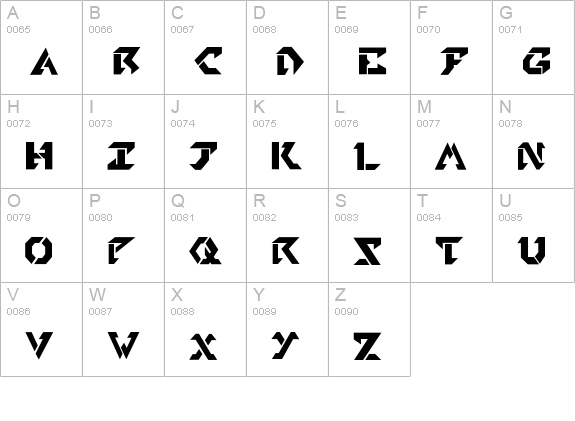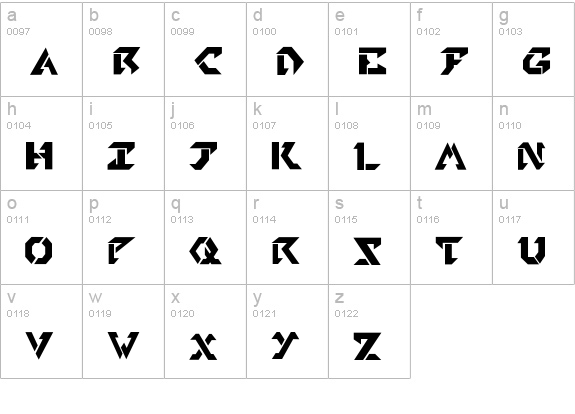
TekHead PD Font Details
Introducing TekHead PD, a sleek and modern font that brings a touch of sophistication to any design project. With its clean lines and bold letterforms, this font is perfect for creating eye-catching headlines, logos, and signage. TekHead PD is not just stylish, it's also versatile. Whether you're working on a corporate presentation, a website, or a print advertisement, this font has the flexibility to adapt to any design concept. Its balanced proportions and carefully crafted details ensure legibility at any size, making it a reliable choice for both digital and print media. But what sets TekHead PD apart from other fonts on the market is that it is completely free. That's right, this high-quality font is freely available to download at FontsMarket.com. Now, you can elevate your design projects without breaking the bank. Whether you're a professional designer or a hobbyist, TekHead PD offers you the opportunity to create stunning visuals without the cost. But don't let its free status fool you. TekHead PD is a font that rivals even the most expensive options. Its meticulous design and attention to detail make it a true standout. From its sleek curves to its precise angles, every aspect of this font has been carefully considered to ensure a superior typographic experience. So why wait? Download TekHead PD today and unleash your creativity. With its versatility, elegance, and most importantly, its free availability, this font is a must-have for any design arsenal. Start creating stunning designs that will captivate your audience and leave a lasting impression. The world of typography is at your fingertips with TekHead PD.